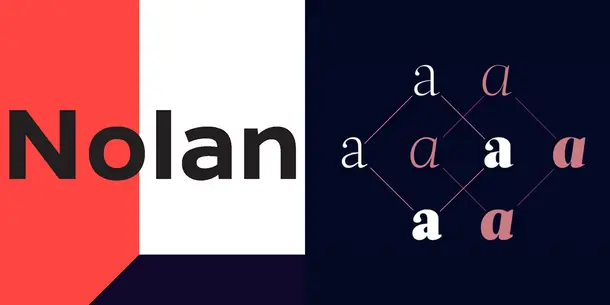
Monotype Announces Collections from DSType and Kastelov Joining the Monotype Family
WOBURN, Mass., April 19th, 2024 — Today Monotype Imaging Inc., a global leader in type and technology, announced type collections from European foundries DSType and Kastelov are joining the Monotype library. These type collections include over 250 font families with diverse styles ranging from workhorse text to emotive display families.
Mary Catherine Pflug, Senior Director of Foundry Product & Operations at Monotype, said, “Kastelov and DSType are examples of two foundries that got their start selling fonts with MyFonts—DSType almost 20 years ago and Kastelov almost 10 years ago—and since then have rocketed into successful businesses reaching brands worldwide and starting type trends with their font releases. I know how much their fonts resonate with designers, so I am excited to welcome their fonts to Monotype’s library and see what these great type designers do next.”
Founded by designer Dino dos Santos, Portuguese foundry DSType has been designing type for 30 years, creating high-value type in a range of styles. Typefaces include Acta Variable, Keiss, Mesclo, and Quase, among others. With this acquisition, all 151 font families and 1,555 fonts from DSType’s first type collection will be available exclusively from Monotype. The independent type foundry will now be pursuing projects focusing on creating new scripts for global audiences.
“We’re thrilled to embark on this fresh start for DSType. This transition allows us to focus on new horizons while upholding the quality and craftsmanship that our clients have come to expect,” said Dino dos Santos, DSType founder and designer.
Designer Galin Kastelov founded the Kastelov foundry in Bulgaria in 2005. The Kastelov type collection includes a variety of functional contemporary typefaces designed for everyday use. The collection comprises five font families, with Nolan, Nolan Next, Intelo, Axiforma, and Kinetika, and 104 font styles, all of which will be available exclusively through Monotype. Moving forward, Kastelov will be stepping away from type to pursue ventures in technology and entrepreneurship.
“This marks the culmination of a truly rewarding journey. My partnership with Monotype has provided me with the platform to share my typographic work and reach a global audience. As I close this chapter, I am excited by the prospect of pursuing entrepreneurial ventures at the intersection of design and web tech,” says Galin Kastelov, founder of the Kastelov foundry.